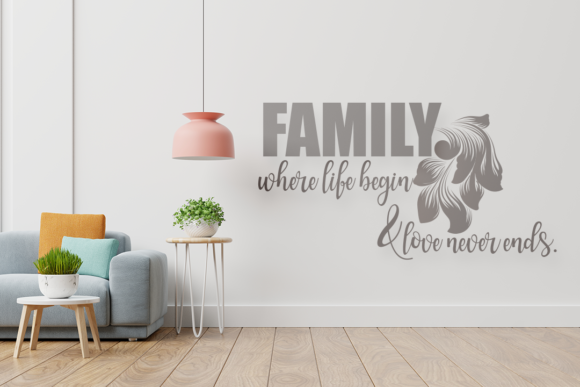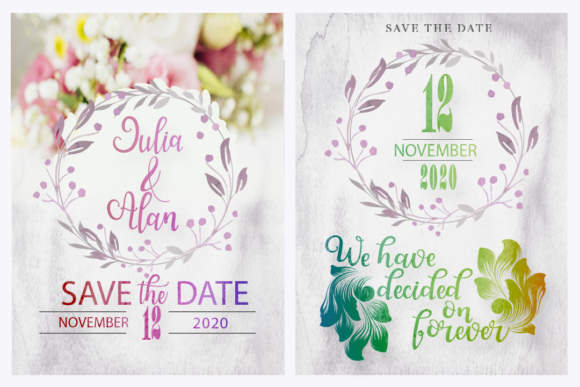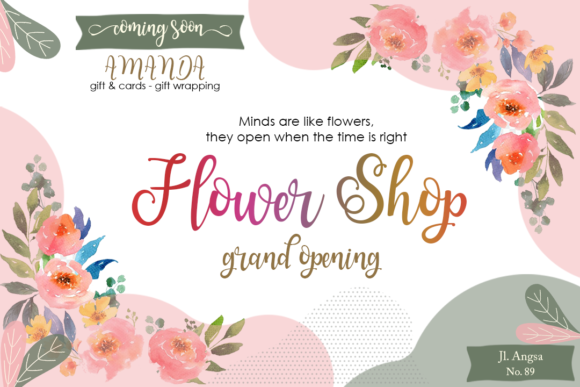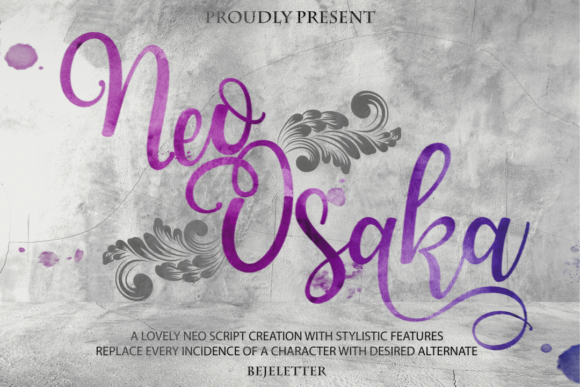
Introduction to Neo Osaka Font
Neo Osaka is a lovely neo script with stylistic features.
Neo Osaka is perfect for product packaging, branding project, magazine, social media, wedding, sport jersey design numbers or just used to express words above the background (interior) This font is PUA encoded which means you can access all of the glyphs and swashes with ease.